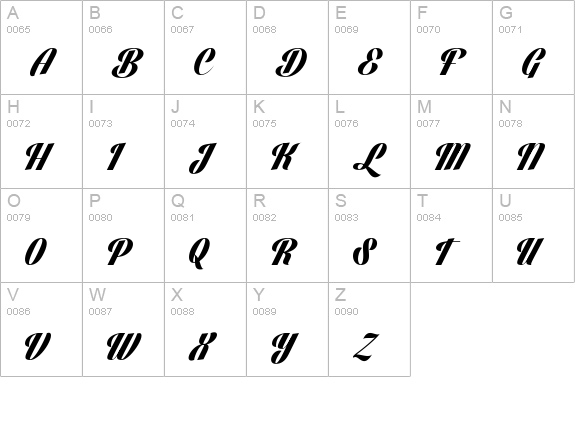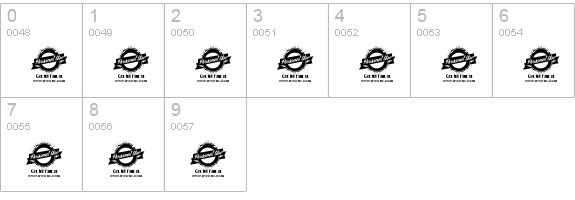
Lighthouse Personal Use Font Details
Lighthouse Personal Use font is a stunning, versatile typeface that is perfect for adding a touch of elegance and sophistication to any project. With its clean lines and classic letterforms, this font is sure to make a bold statement. What sets Lighthouse Personal Use font apart is that it is not only visually appealing, but it is also completely free! Yes, you read that right - this amazing font is freely available to download at FontsMarket.com. Now you can add a professional and polished look to your designs without breaking the bank. Whether you're working on a website, a logo, a poster, or any other creative endeavor, Lighthouse Personal Use font will instantly elevate your work to new heights. Its timeless design and wide range of weights make it suitable for various applications, ensuring that it will always find a place in your design toolkit. This font is incredibly versatile, capable of complementing both modern and traditional aesthetics. Its legibility and readability make it a fantastic choice for body copy, while its decorative elements add a touch of flair to headlines and titles. Lighthouse Personal Use font is the perfect blend of beauty and functionality, making it a must-have for any designer or creative professional. Download it for free today at FontsMarket.com and let your creativity shine.